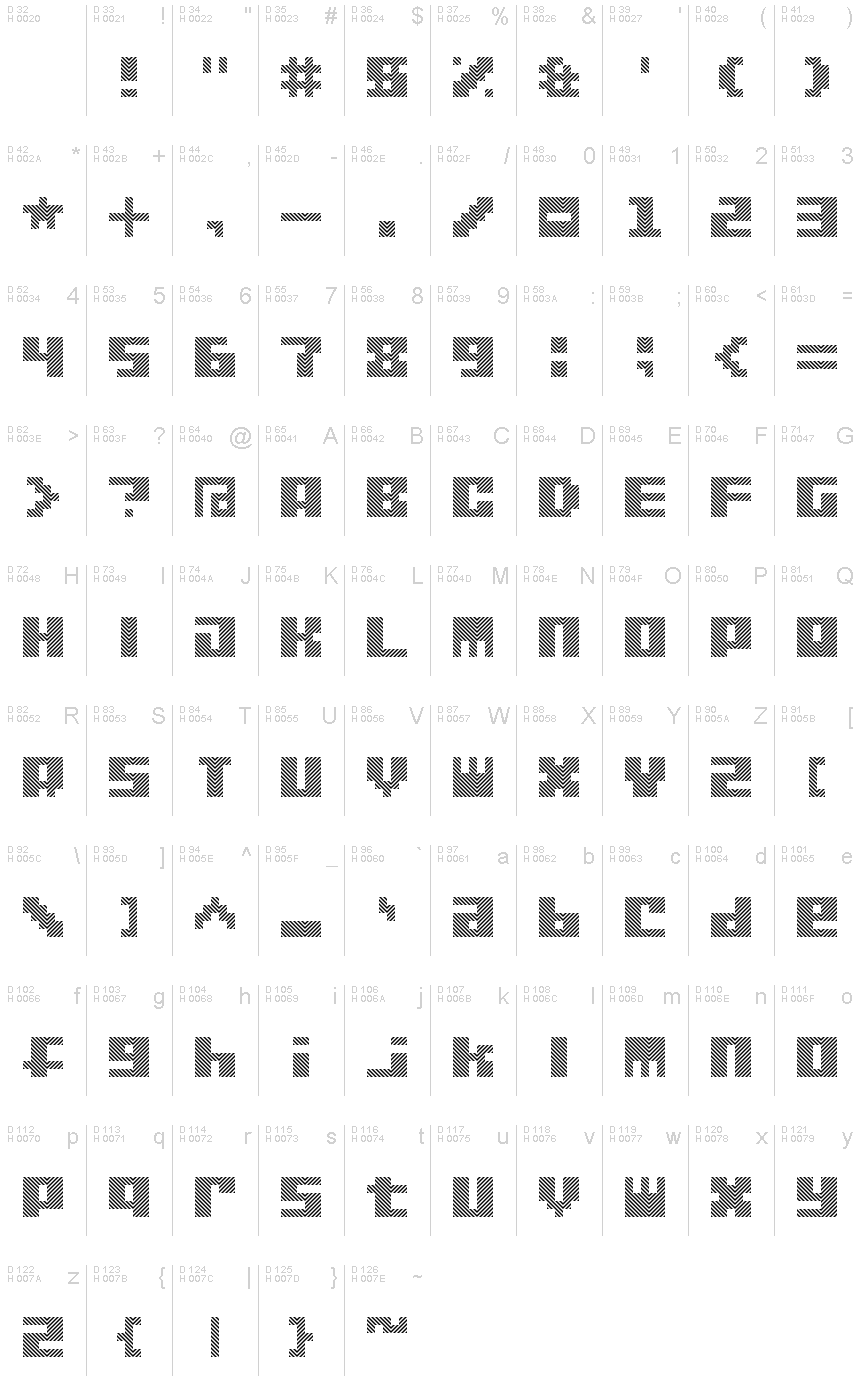
Zap Cannon Regular
“Zap Cannon” was built with FontStruct
Designer description: A doodle made with Brick Basket.
This has many uses! It works as a pixel font or a high-res one, and can generate a surprising range of visual effects.
I don't recommend cloning it... it likes to glitch out...